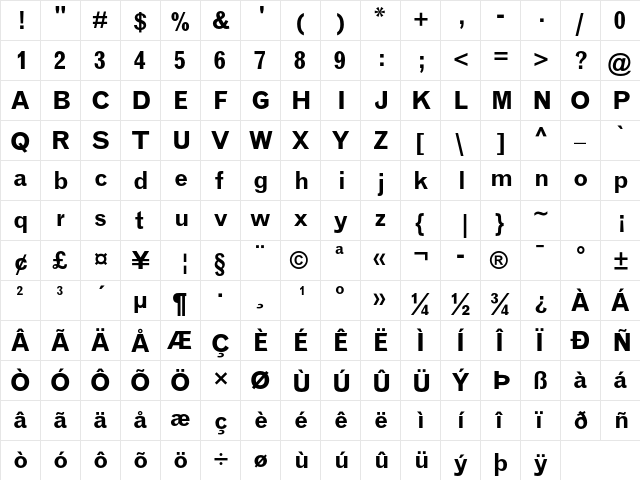
Grotesque MT Std Bold
Design Context for Grotesque MT Std Typeface
Grotesque MT Std offers clean, dependable letterforms without strong stylistic allegiance, making it a practical choice for designers who need flexibility. Its bold stroke weight gives it real presence on the page.